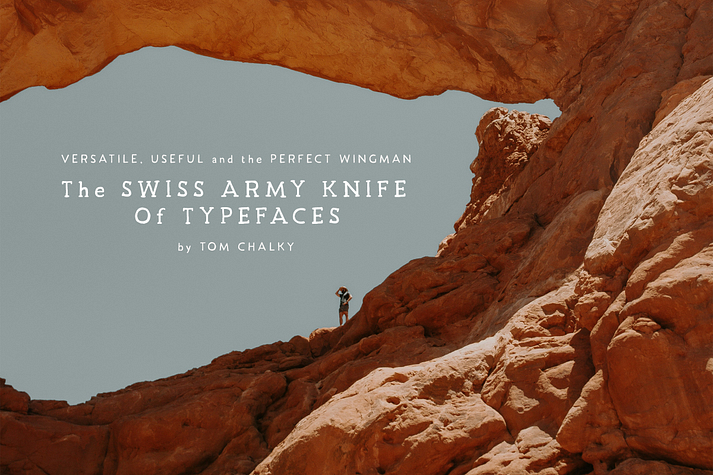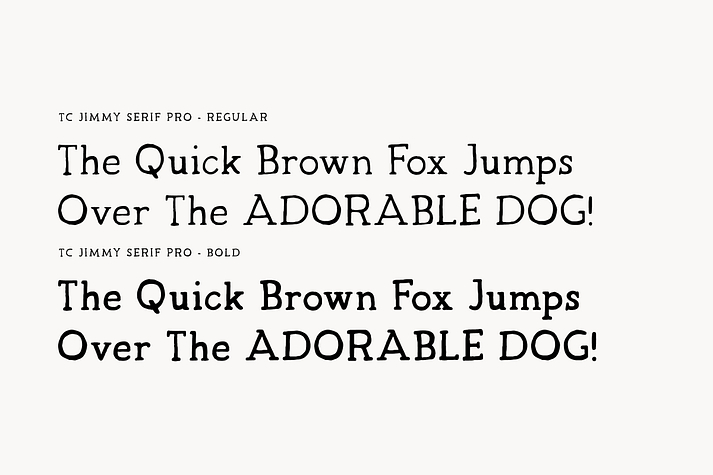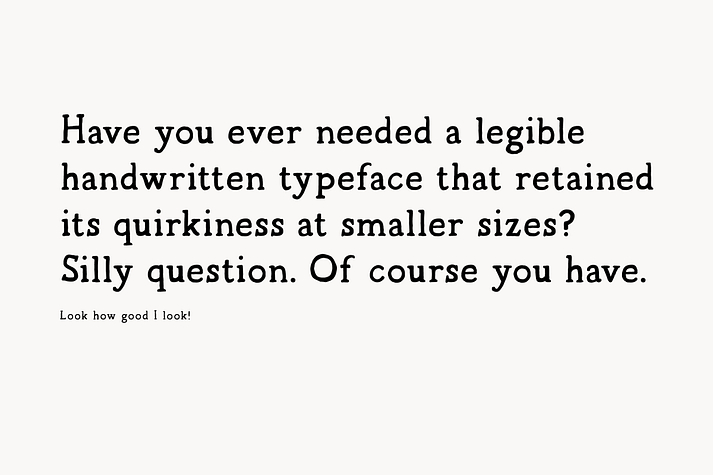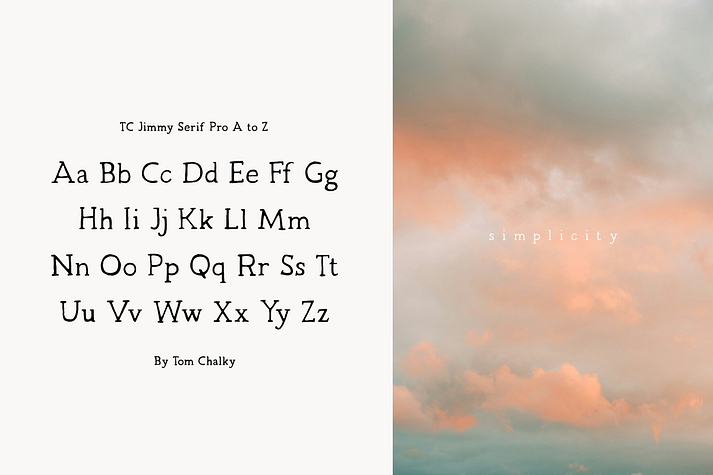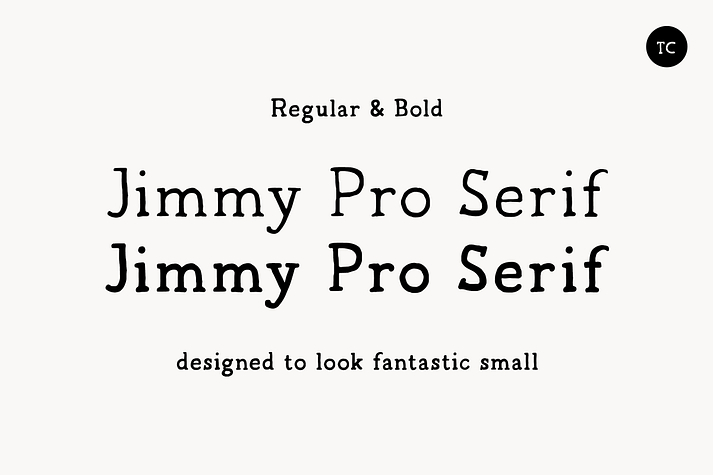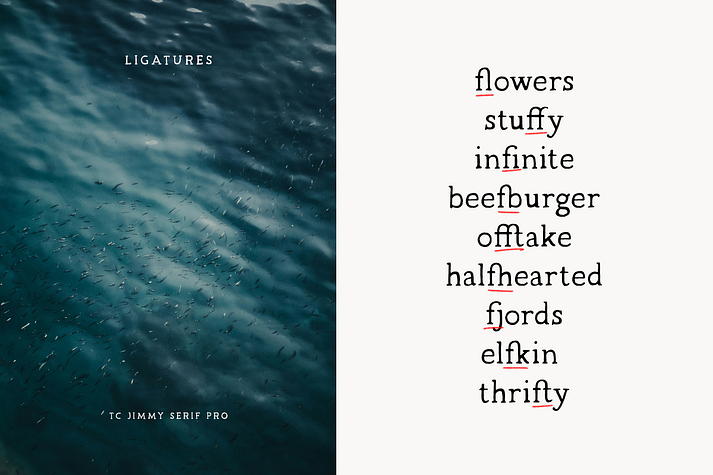
TC Jimmy Serif Pro
TC Jimmy Serif Pro is a slab serif font family. This typeface has two styles and was published by Tom Chalky.
Proudly introducing TC Jimmy Pro Serif - The perfect complementary serif for your growing handcrafted font collection. A handwritten typeface designed specifically to look great in smaller sizes. A tough task for most handwritten fonts on the market.
Designed out of Necessity - As a designer of handmade fonts, I needed a serif that retained that desirable handwritten look at smaller sizes to use within presentation images (like the ones you see above). A font like this would help massively when adding a variety of typography to the designs I often find myself working with. (and I imagine the same for you!)
After originally launching in 2014, Jimmy has gone on to become one of my most popular fonts, and with this PRO release, lowercase glyphs, and extra multilingual support have been added.